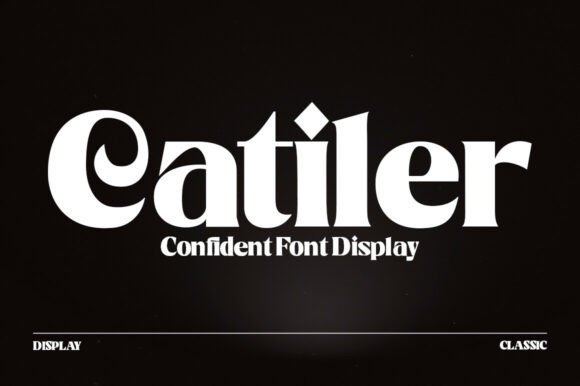
Unleashing the Power of Typography: Introducing Catiler Font
Have you ever been stuck on a design project, staring at a blank page, waiting for that perfect font to spark inspiration? It’s a moment we’ve all been in – a moment of creative frustration, where the right font can make all the difference. For designers seeking that extra oomph in their editorial titles, the Catiler Font is here to save the day.
This elegant and highly dynamic modern display font is designed specifically for editorial titles, making it a valuable addition to any designer’s toolkit. With its OpenType-enabled capabilities, Catiler Font offers seamless integration across various projects, from web design to print materials. Its bold, sleek style is perfect for editorials, magazine covers, posters, and more – making it a must-have for designers looking to elevate their typography game.
Catiler Font Key Features
- Unique Characteristics: The font features a unique blend of modern and vintage elements, with intricate details and ornaments that set it apart from other fonts.
Designer Review: Catiler Font
Overall, I think Catiler Font has some great qualities, but it also has some areas where it falls short. Let’s start with what works well: ✨
- Unique and playful style – Catiler Font has a fun, whimsical feel that’s perfect for projects where you want to add a bit of personality.
- Wide range of weights – With multiple weights to choose from, you can easily find the perfect version to suit your design needs.
- Good legibility – Despite its playful style, Catiler Font is still easy to read, even at smaller font sizes.
However, there are also some limitations to consider: ⚠️
- May not be suitable for formal projects – While Catiler Font is great for playful projects, it may not be the best choice for more formal or professional designs.
- Some weights may be a bit too bold – A few of the heavier weights can feel a bit overwhelming, so be sure to use them judiciously.
- Not as versatile as some other fonts – While Catiler Font is great for certain types of projects, it may not be the best choice for a wide range of design applications.
Overall, I think Catiler Font is a solid choice for designers looking to add some personality to their projects. With its unique style and wide range of weights, it’s a great option for the right type of project. Just be sure to consider its limitations and use it judiciously.
Tips for Getting the Most Out of Catiler Font
Use Catiler Font for titles, headings, and emphasis to add visual interest to your designs.
Experiment with different font sizes and styles to create a cohesive look.
Combine Catiler Font with other fonts to create a unique and eye-catching design.